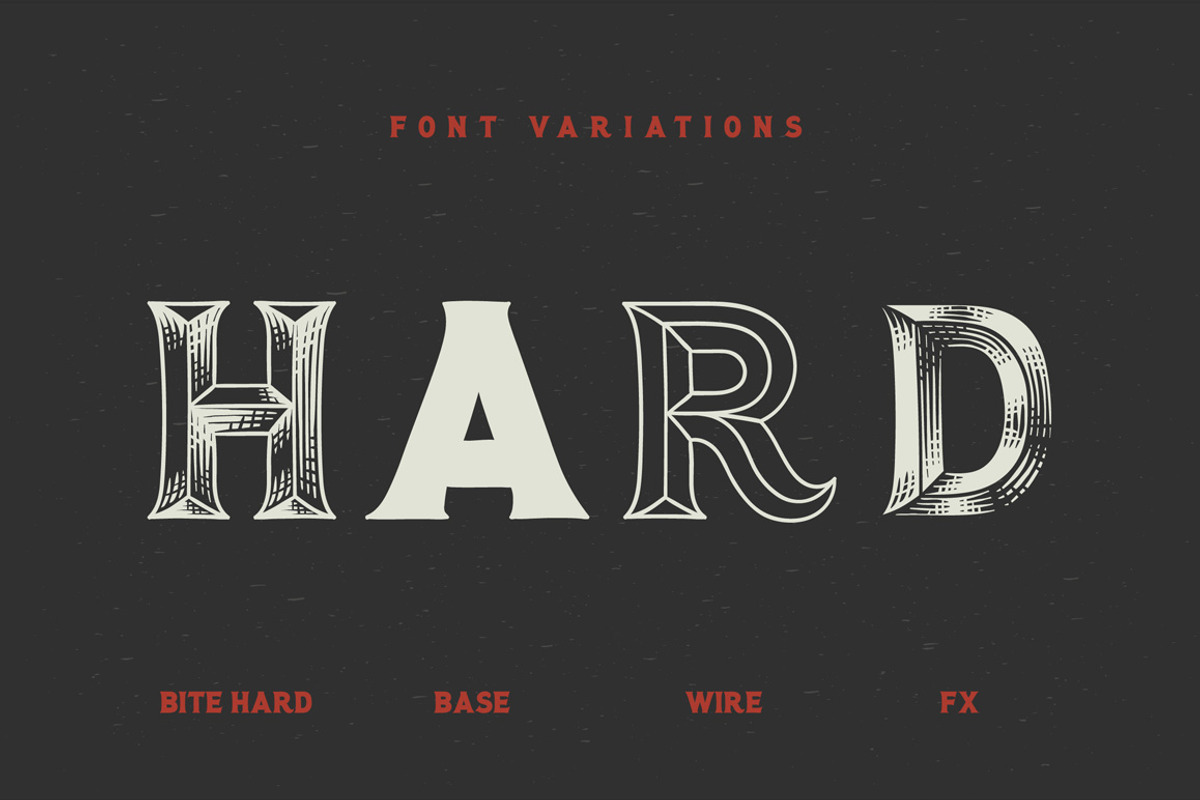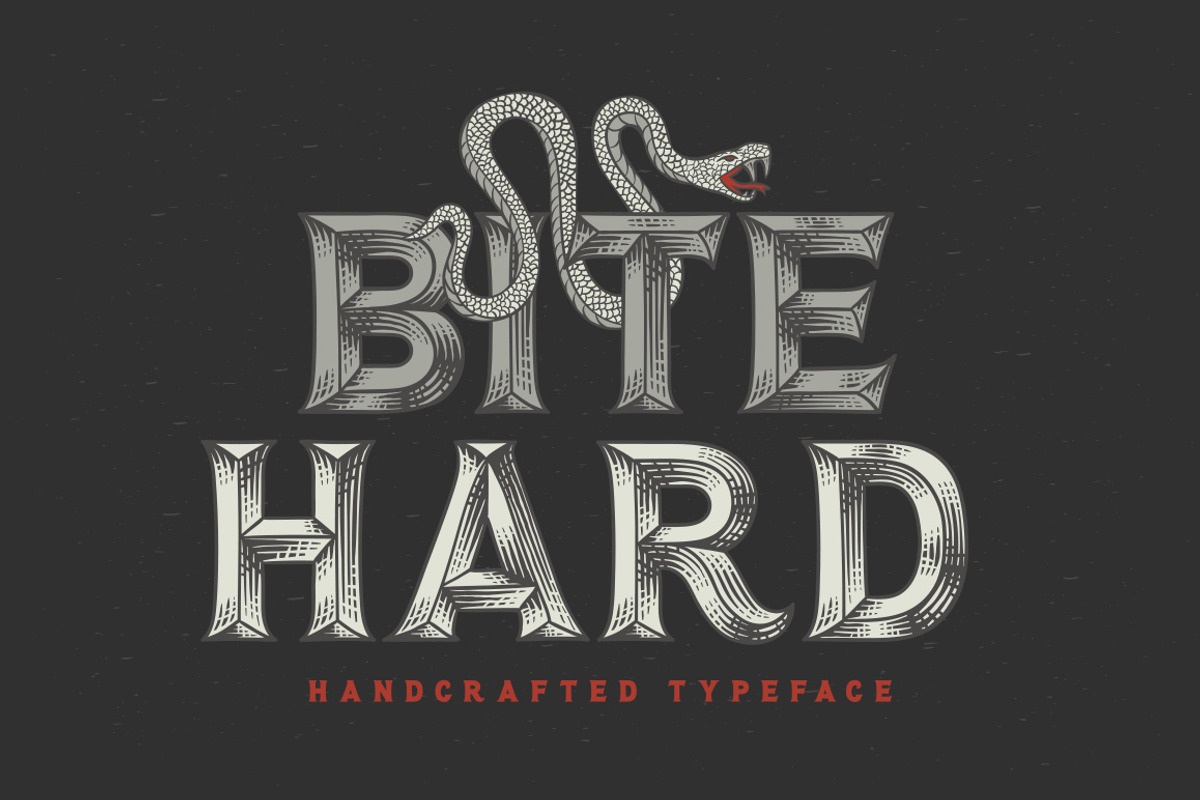
Bite Hard font
Bite Hard font by Gleb Guralnyk is a font selected for branding, posters, packaging, typography.
Why Bite Hard font is worth a look
Bite Hard font by Gleb Guralnyk fits naturally into Branding, posters, packaging, typography.